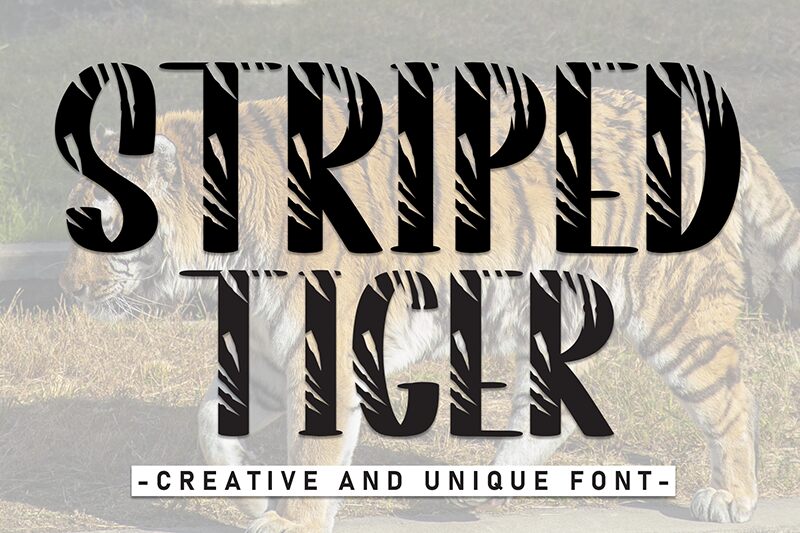
Striped Tiger
Striped Tiger is a display font designed by Andi Moz that looks a little like it was hand-carved into wood. Each character and symbol has a unique texture that looks like it was cut with a knife and pressed over a flat surface. The letters themselves are sans serif, condensed, and uppercase, and the texture is black and white, so this font should be used to create text with high contrast against the background.
This font can be used for vintage branding and apparel projects, as well as logo and packaging design, or it can be used for graphic and website design to decorate headlines, subheadings, buttons, etc. It looks great on its own or combined with other fonts.